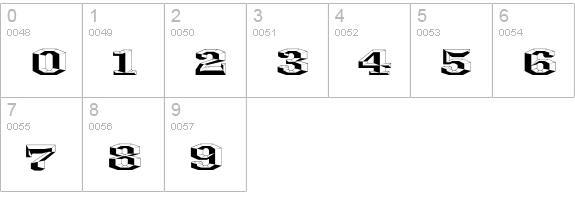
Ironmonger-ThreeD Font Details
Ironmonger-ThreeD font is a stunning and unique typeface that is sure to make a bold statement in any design project. Its three-dimensional design adds depth and dimension, giving your text a visually captivating and modern look. The sharp edges and meticulous details of this font create a strong and industrial aesthetic, making it perfect for projects that require a touch of edginess. What sets Ironmonger-ThreeD font apart is not just its striking appearance, but also the fact that it is free to download. Yes, you read that right – this incredible font is freely available to download at FontsMarket.com. Whether you're a professional designer looking to add a fresh and contemporary element to your work or a hobbyist looking to experiment with new fonts, Ironmonger-ThreeD font is the perfect choice. With its wide range of characters, including uppercase letters, lowercase letters, numbers, and punctuation marks, Ironmonger-ThreeD font offers versatility and flexibility in your designs. Whether you're creating a logo, poster, website, or any other graphic project, this font will elevate your work to new heights. The attention to detail in Ironmonger-ThreeD font is truly impressive. Every curve, line, and angle is carefully crafted to create a visually stunning and impactful design. The three-dimensional effect adds depth and realism, making your text appear as if it's popping off the page. Downloading Ironmonger-ThreeD font is incredibly easy. Simply head over to FontsMarket.com, find the font, and click the download button. Within seconds, you'll have this fantastic font at your fingertips, ready to enhance your creative endeavors. So why wait? Take advantage of this amazing opportunity to download Ironmonger-ThreeD font for free and let your creativity soar. Whether you're a professional designer or a beginner, this font will undoubtedly become an essential tool in your design arsenal. Don't miss out on this incredible offer – visit FontsMarket.com today and discover the power of Ironmonger-ThreeD font.